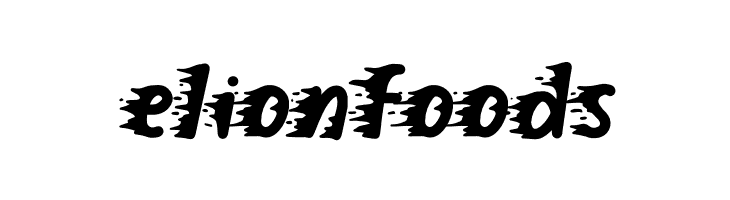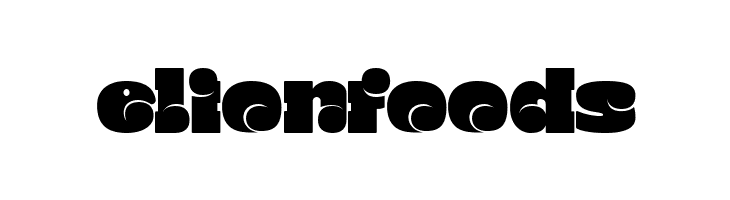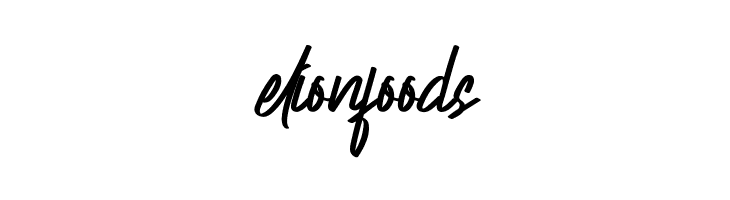
A bold, fiery font with dynamic, jagged edges conveying motion and excitement.
A bold, playful font with exaggerated, elongated characters for a dynamic look.
A bold, playful retro font with thick, rounded strokes and whimsical curves.
A bold, geometric font with circular cutouts and a playful yet structured design.
A playful, bold font with rounded, bubble-like characters and a cartoonish style.
A bold, geometric font with a modern and edgy style.
A bold, Gothic-inspired font with sharp, angular edges and dramatic serifs.
A clean, handwritten-style font with thin, uniform strokes and a modern aesthetic.
A dynamic, handwritten script font with fluid, connected letters and varying stroke thickness.
A bold, eclectic display typeface with diverse styles and modern appeal.